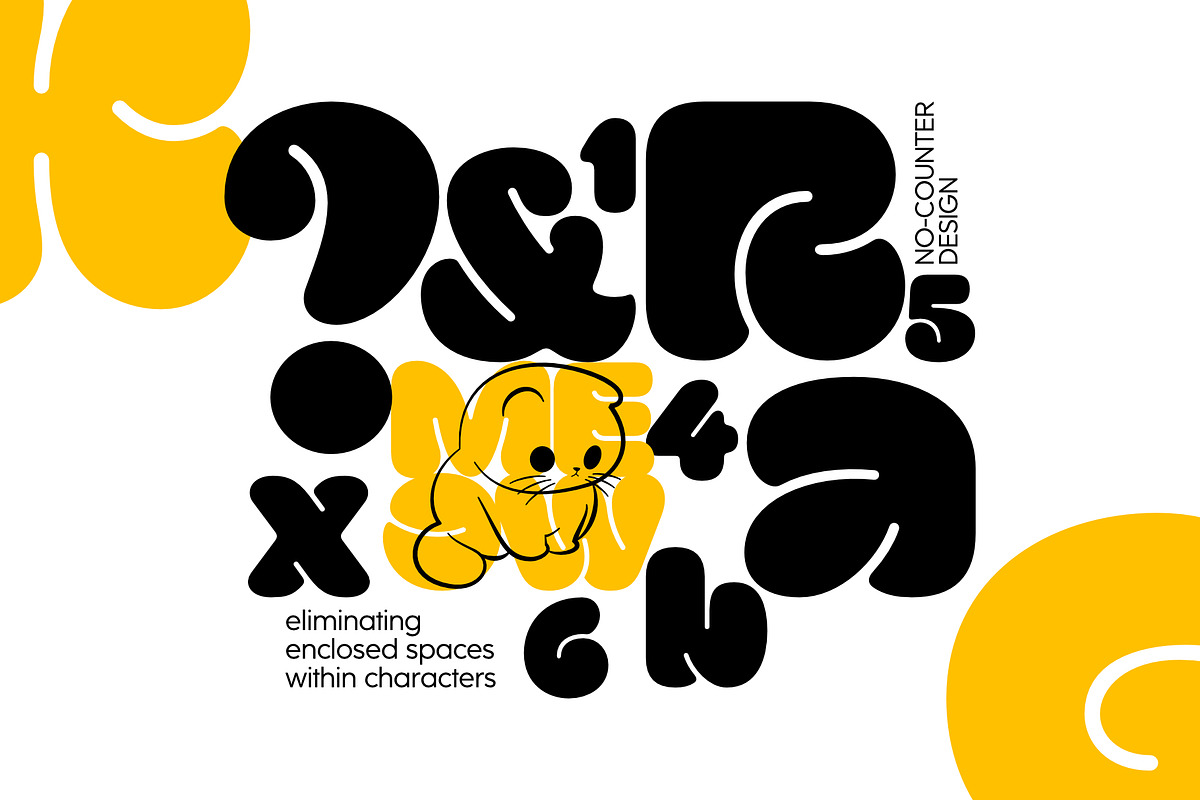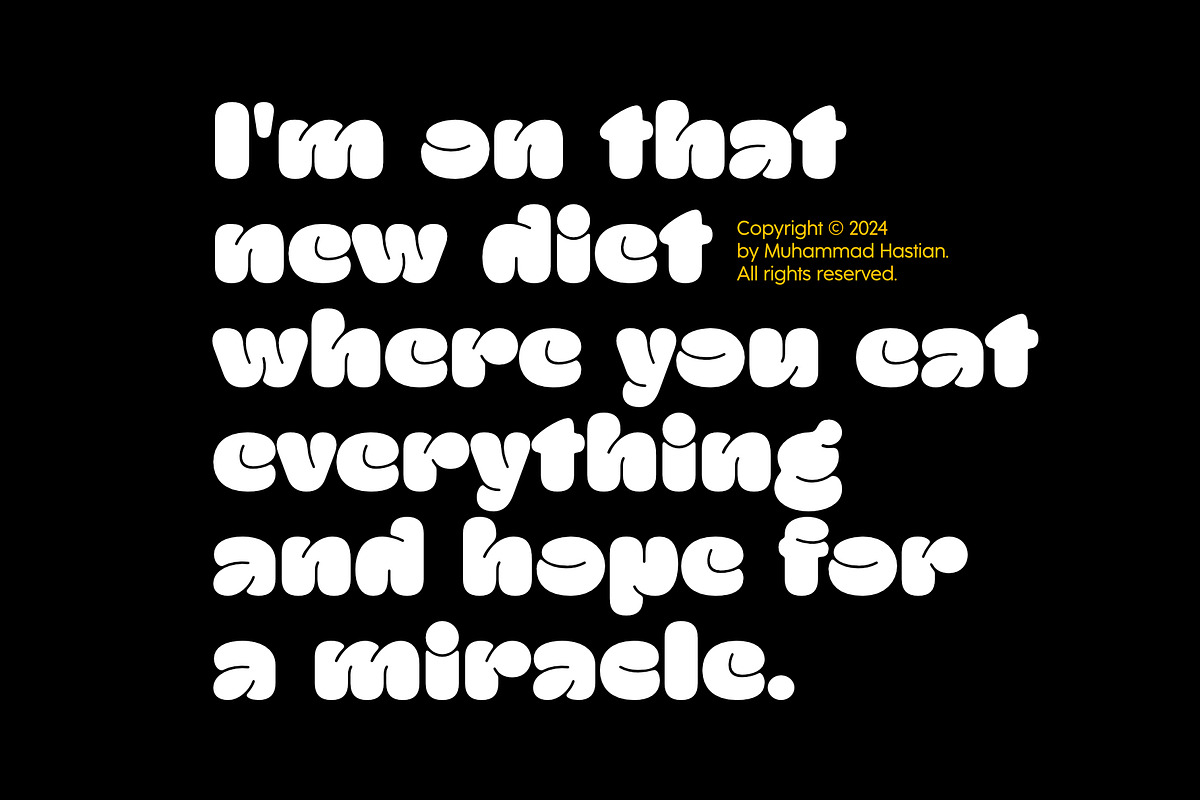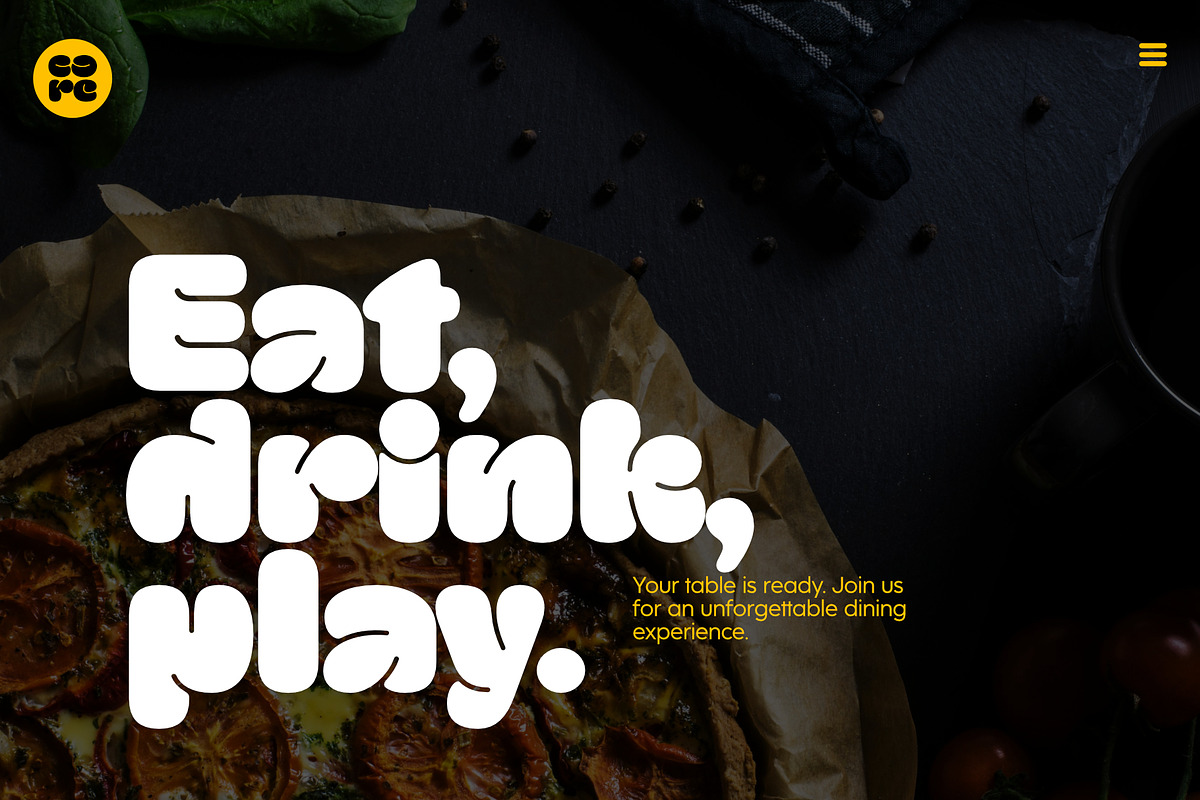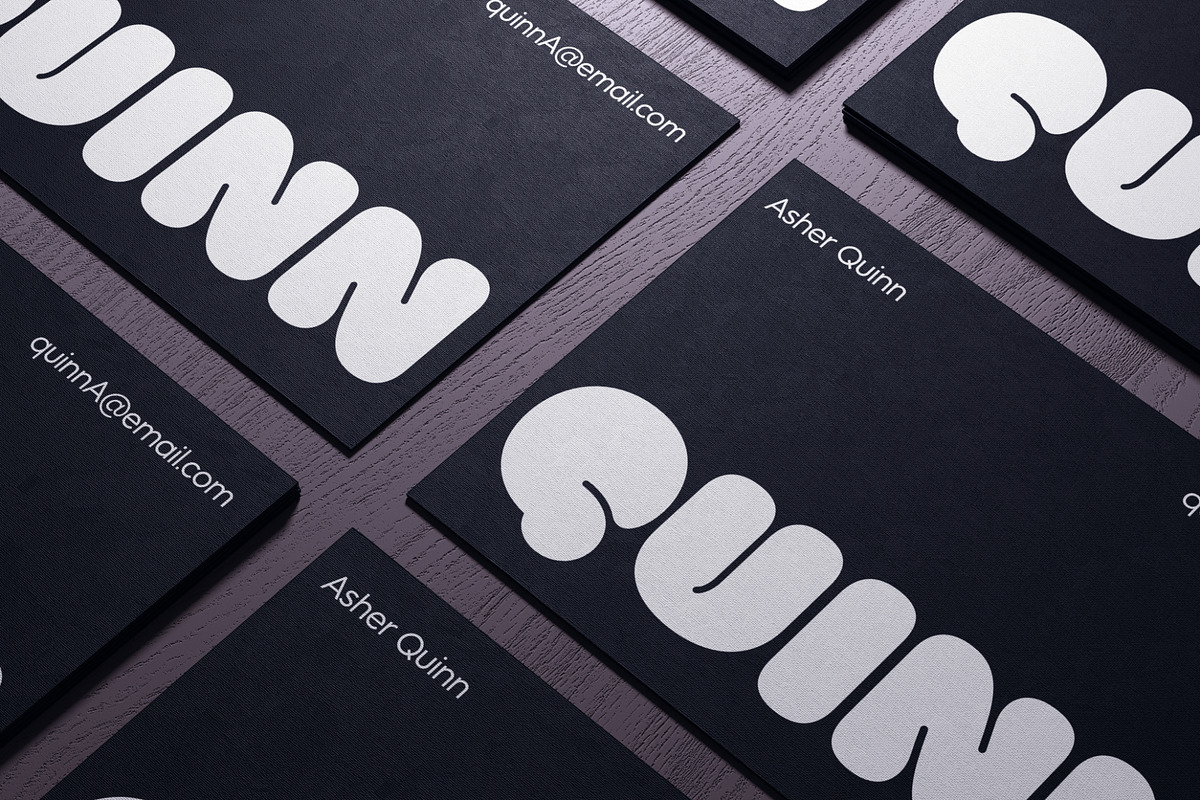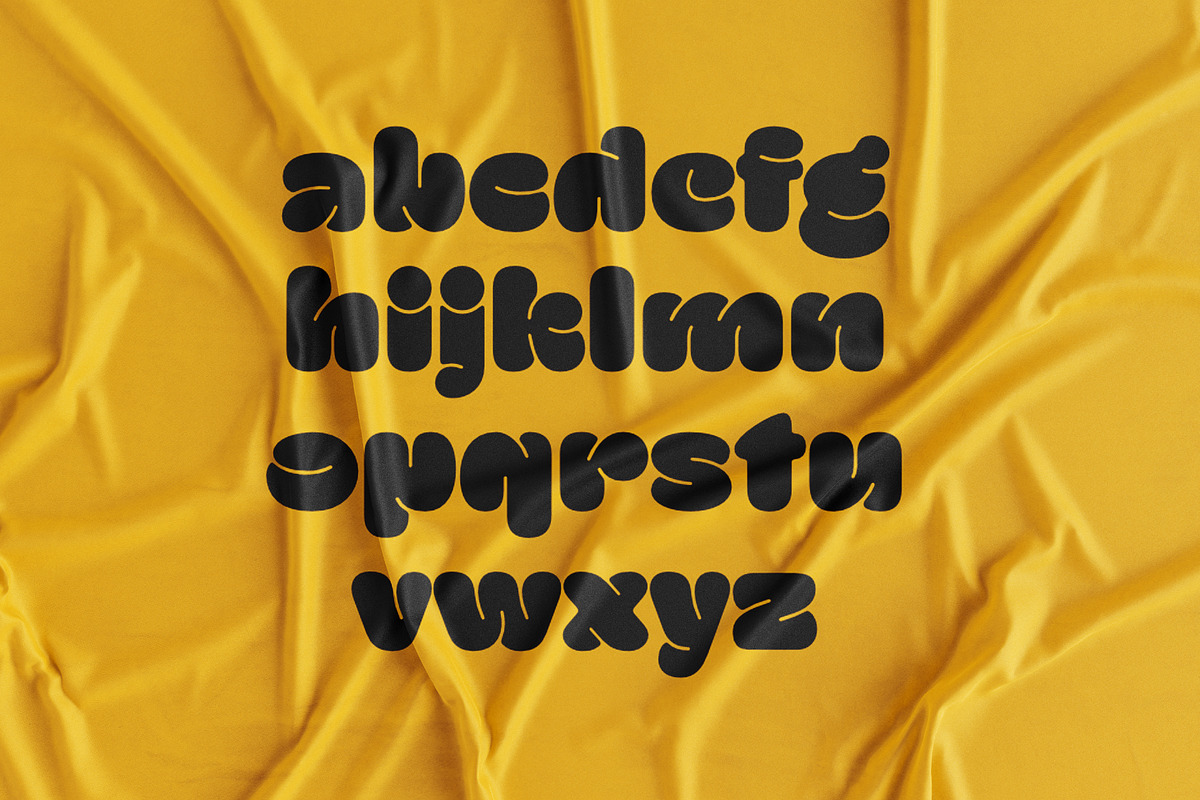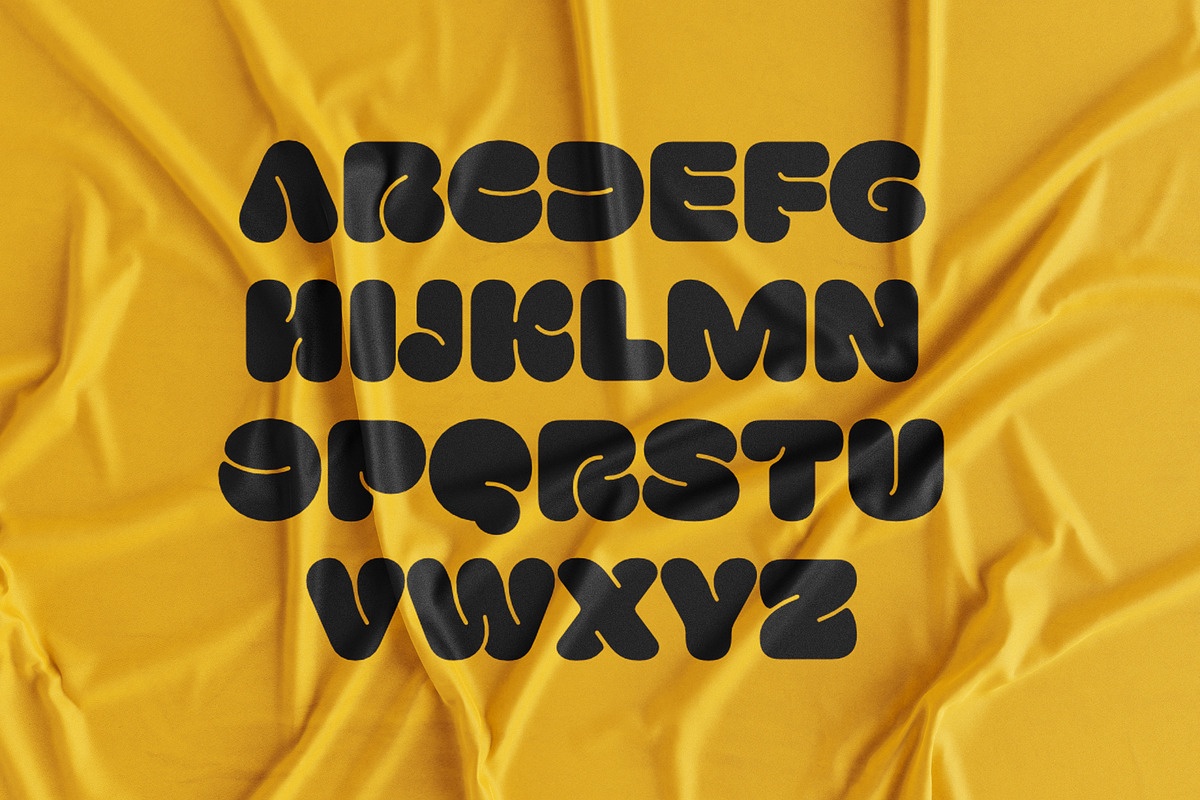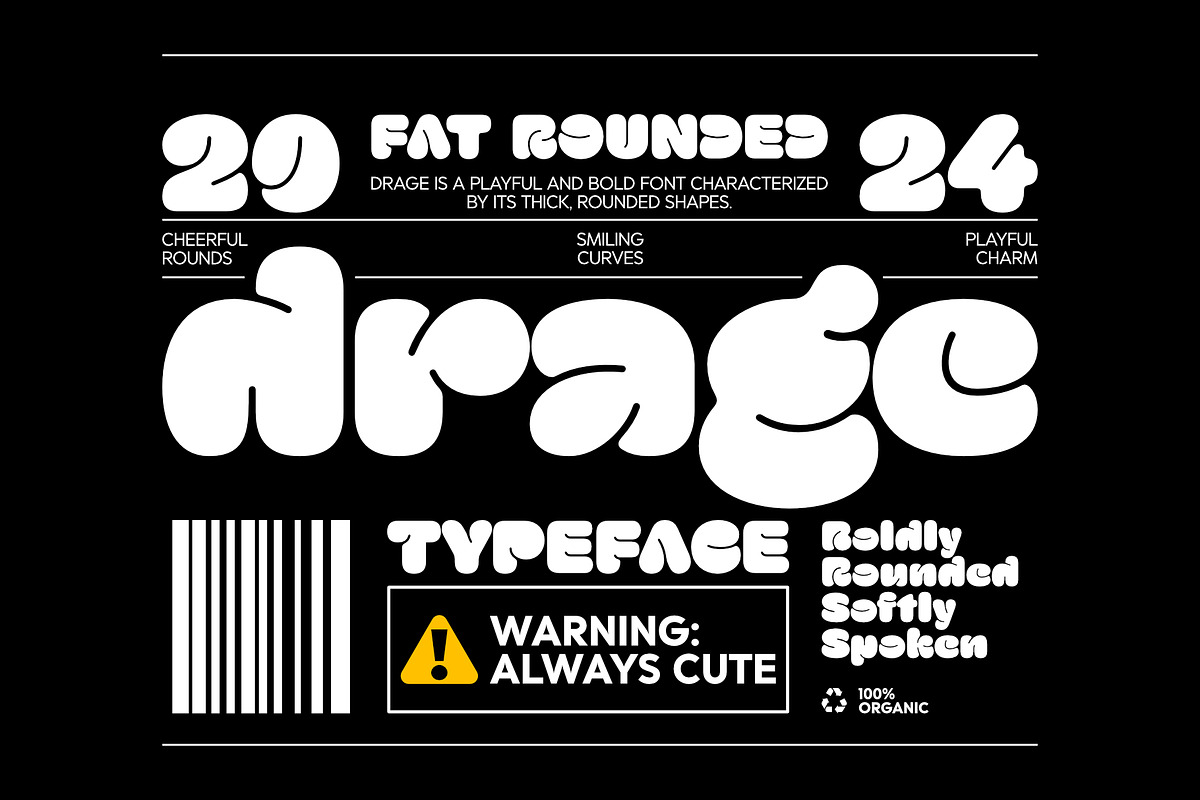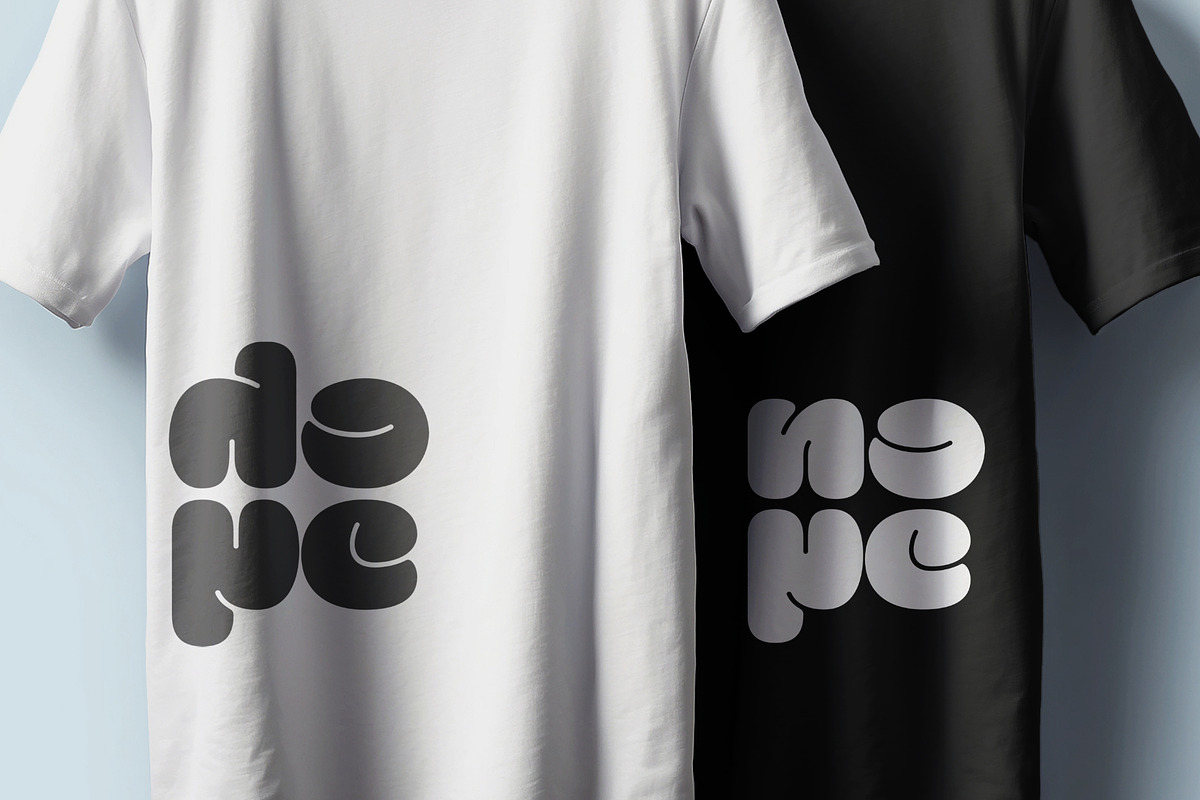
Drage
Drage is a playful and bold typeface characterized by its fat, rounded, and chubby letterforms. It is constructed without counters, giving the font a solid and smooth appearance. The thick strokes and absence of internal spaces create a sense of fullness and approachability, making Drage perfect for fun and casual designs, logos, or headlines that demand attention with a friendly, chunky vibe.